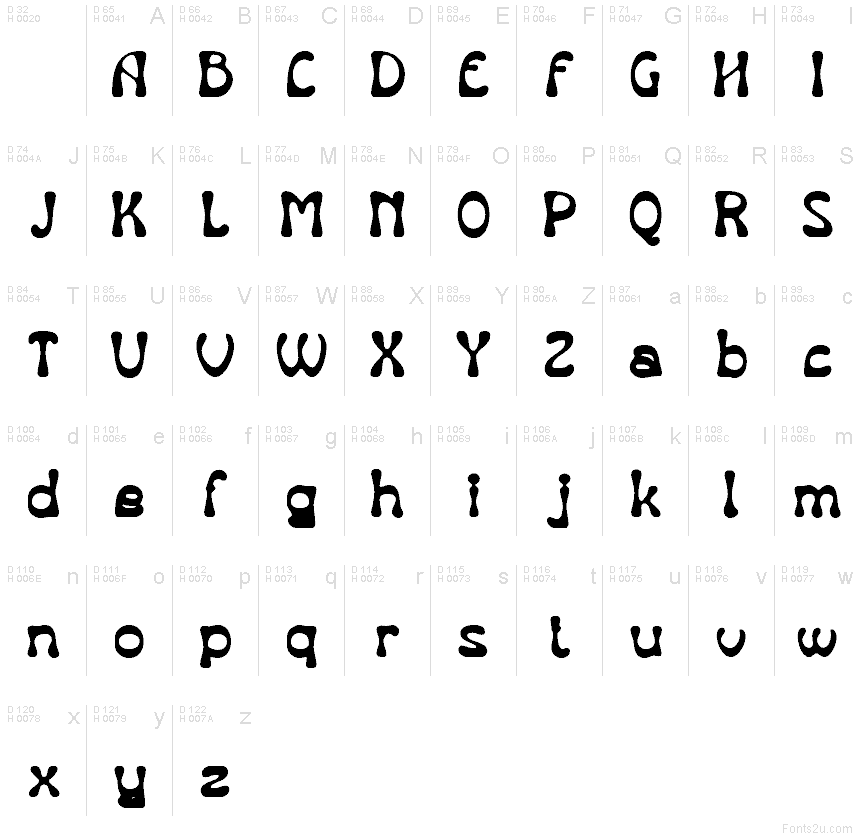
CS Sloane Drawn font by Craft Supply Co. is a free groovy hand-drawn display font from the CS Sloane family. It stands out with pillowy, ink-splotch strokes and softly melted corners that create a wavy rhythm without losing clarity. The chunky forms hug their counters, giving headlines a lively bounce and a tactile, marker-drawn warmth.
Using CS Sloane Drawn, your titles snap with personality on posters, festival branding, album covers, beverage labels, stickers, and social graphics. This free font shines at large sizes where its quirky weight shifts and rounded edges can breathe. Pair it with a clean geometric sans for body copy, and keep generous tracking to let those bubbly silhouettes pop.